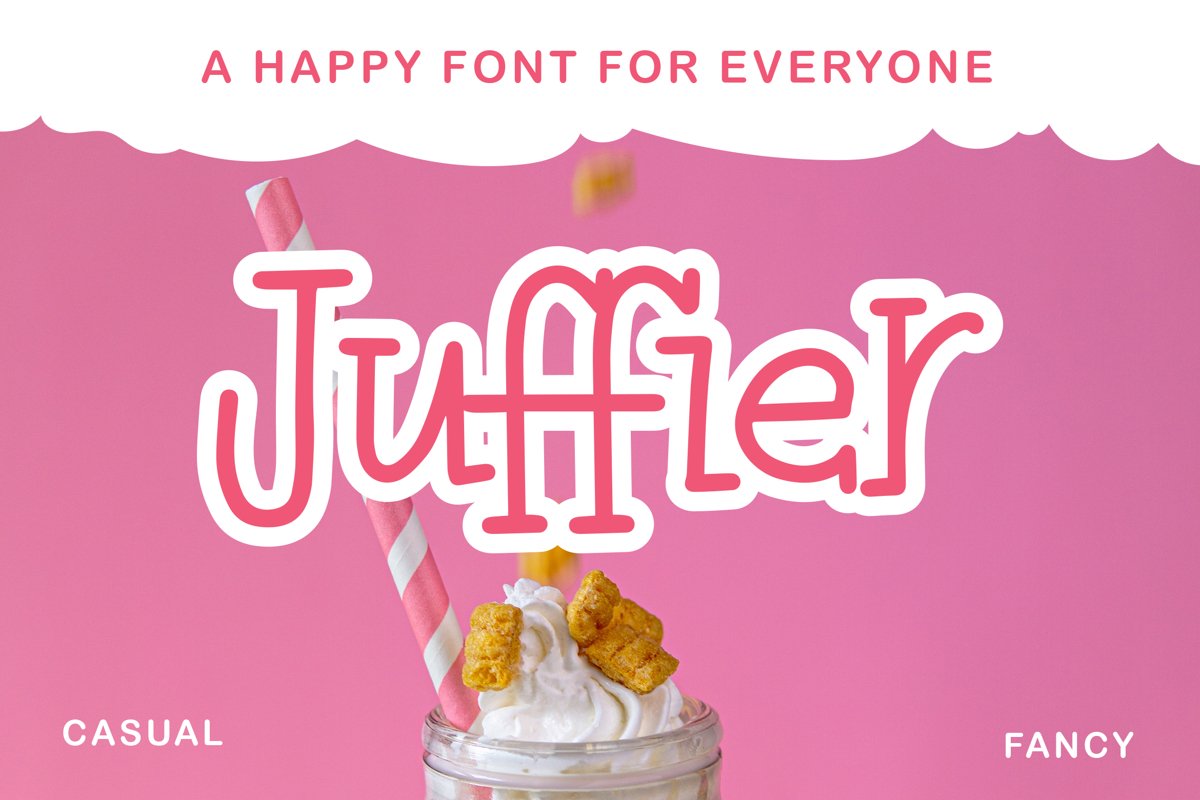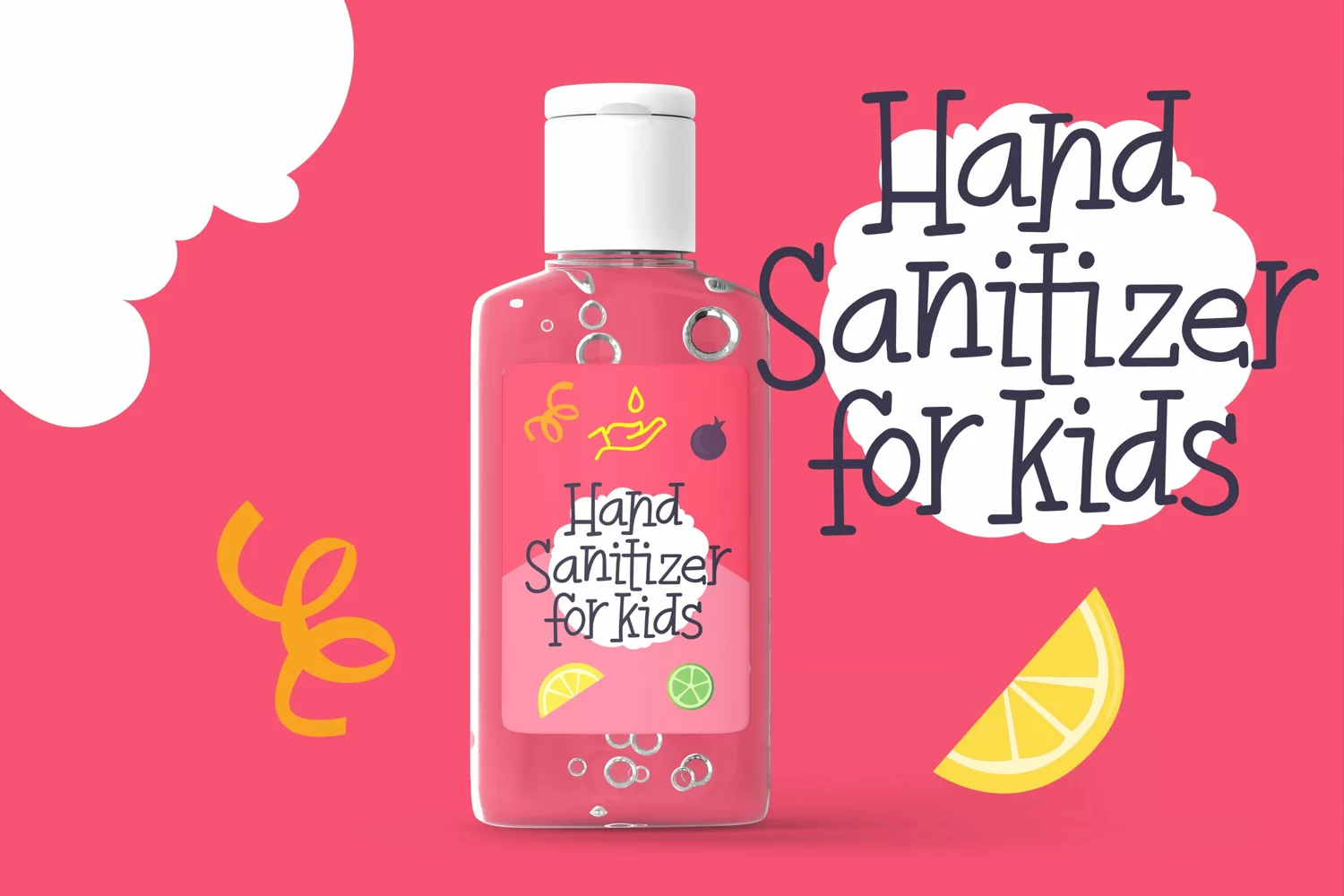
Juffier - Fancy Fonts that contain lowercase, uppercase, symbol, and also support multi language. There’s a lot ligatures in this font. This Font also comes with ligatures, alternates and many more. this font suitable for fashion, branding, catalog and other design what you want.
Juffier